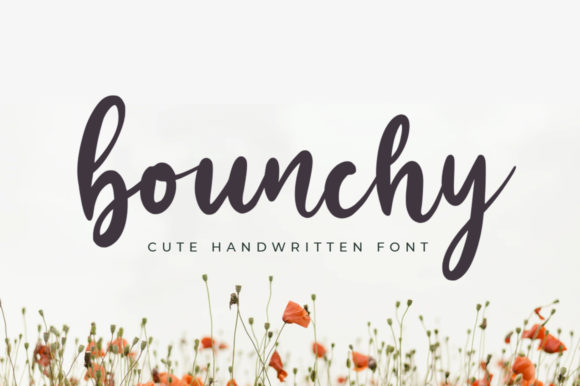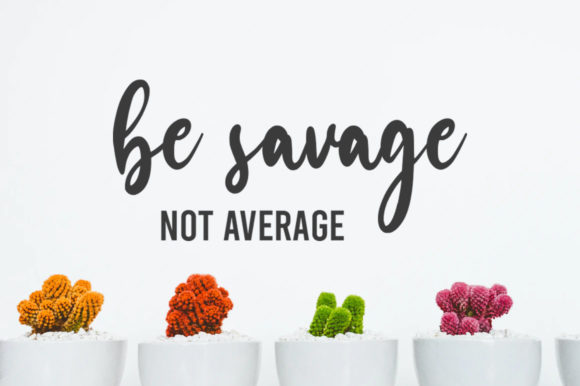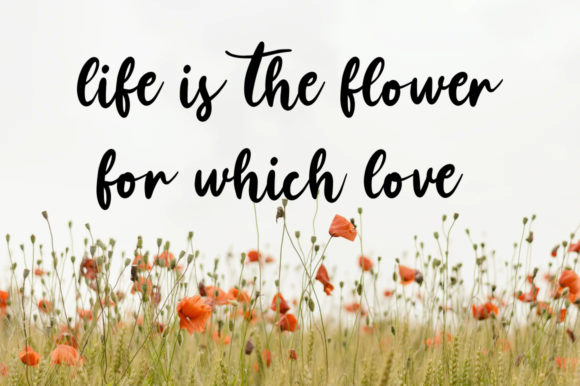
About Bounchy Font
Bounchy is a jolly and cursive handwritten font that brings a playful and lively vibe to your designs. With its gentle and flowing letterforms, this font is perfect for adding a touch of charm and personality to a wide range of design ideas.
The jolly nature of Bounchy is evident in its playful and lively strokes. The cursive style of the font creates a sense of movement and whimsy, making it a great choice for projects that need a joyful and light-hearted feel. Each letter is carefully crafted to maintain a balance between curviness and legibility, resulting in a font that is both fun and easy to read.
Bounchy is versatile and can be used in various design projects. Whether you’re creating greeting cards, invitations, posters, or any other creative endeavor, this font will bring a customized and romantic touch to your creations. Its gentle and flowing nature makes it particularly suitable for projects that require a warm and inviting atmosphere, such as love letters, scrapbooks, or themed party decorations.
The lively and cursive letterforms of Bounchy add a sense of energy and enthusiasm to your text. The curves and loops of the letters create a dynamic visual appeal, capturing the viewer’s attention and conveying a sense of excitement. This vivacity makes Bounchy stand out and adds a touch of liveliness to your designs.
When using Bounchy, you have the opportunity to explore different design compositions and pairings. The font works well on its own, but it also complements other typefaces, allowing you to create visually interesting combinations. You can experiment with mixing Bounchy with sans-serif or serif fonts to achieve a harmonious balance of styles.
Moreover, Bounchy ensures readability and legibility, even in smaller sizes. The well-designed letterforms and appropriate spacing contribute to clear and easily readable text, ensuring that your message is effectively communicated to your audience.
In summary, Bounchy is a jolly and cursive handwritten font that adds a playful and lively touch to your designs. Its gentle and flowing letterforms, along with its lively strokes, create a charming and inviting look. Whether you’re working on greeting cards, invitations, or any other design project, Bounchy brings a customized and romantic feel to each of your creations.